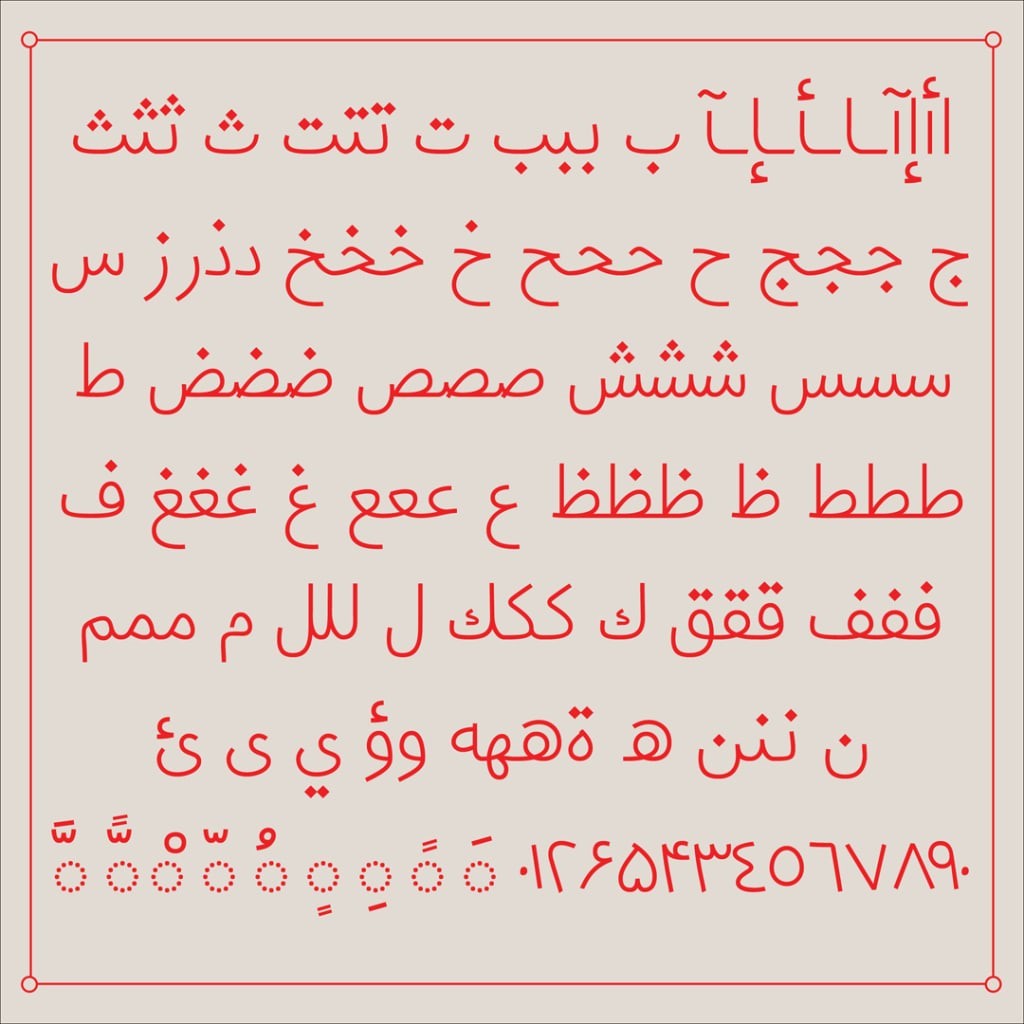
Can this Arabic font help readers with dyslexia?
A new font call Maqroo attempts to improve readability with irregular letterforms.
Maqroo, an Arabic word for “readable,” is also the name of the first-of-its-kind Arabic font for readers with dyslexia.
“Arabic is a complicated writing system,” says Abdo Mohamed, founder of the type foundry Boharat and an art director at Leo Burnett Dubai, who led the project. “We’re using the same body for many letters, so it’s only the marks that differentiate.” This consistent letterform structure can lead to challenges for people with dyslexia, who can have difficulty distinguishing between characters.
Mohamed and his team developed the font for International Day of People of Determination as part of a partnership between Leo Burnett and Omantel, the majority state-owned telecommunications company in Oman. They engaged the Institute of Learning Disability, which connected the team with dyslexic volunteers who helped shape the final letterforms to better suit their needs.
Because Arabic lettering relies on many similar shapes, the Leo Burnett team added a touch of irregularity to Maqroo’s letters. They added irregular space between letters, increased the size and shape of nuqtas and tashkeels (dots and symbols used as diacritics in Arabic), and changed the shapes of the letters’ counter—or the inside space of a letterform, like in B, D, and O in Latin langauges. When a letter is used two times in a row, one is changed “so it looks different,” Mohamed explains. “Even the dots are going to be in a different height.”
They also got rid of ligatures, which are instances when two letters combine into a single glyph. “That confused the readers the most,” Mohamed says.
Do fonts really help?
The science behind dyslexia-friendly fonts is debatable, though that hasn’t stopped many people from trying to make fonts that enhance readability. Take Dyslexie, a font from Christian Boer that uses the same concept of irregularity to help people with dyslexia read the Latin alphabet more easily. Some studies have found that the font was no better than Arial for reading speed and comprehension. Instead, research suggests using shorter text lines and increased space between letters to be most helpful.
Unlike its Latin alphabet counterparts, Maqroo has not yet been tested for efficacy, but until now there hasn’t been an attempt to design Arabic type for readers with dyslexia. ”There’s about 650 Arabic fonts usable across the globe, and none of them happened to be dyslexic-friendly,” says Rahul Sharma of Leo Burnett. At the very least, Maqroo is trying to change that.